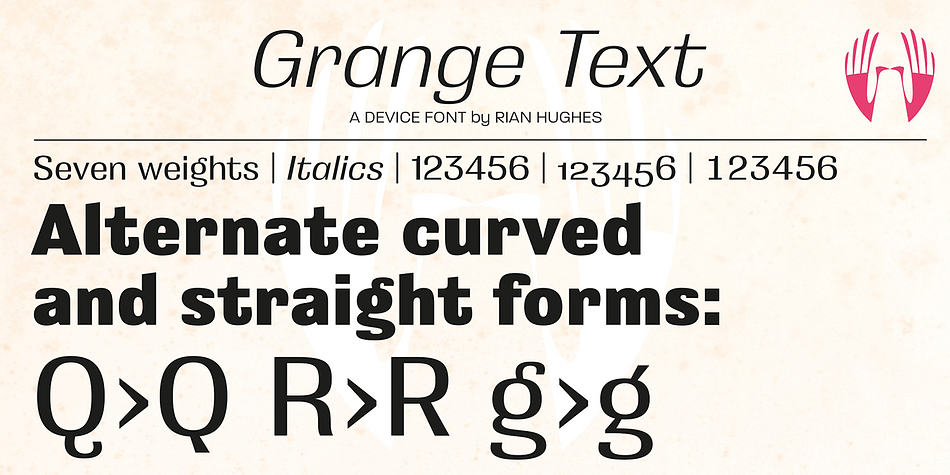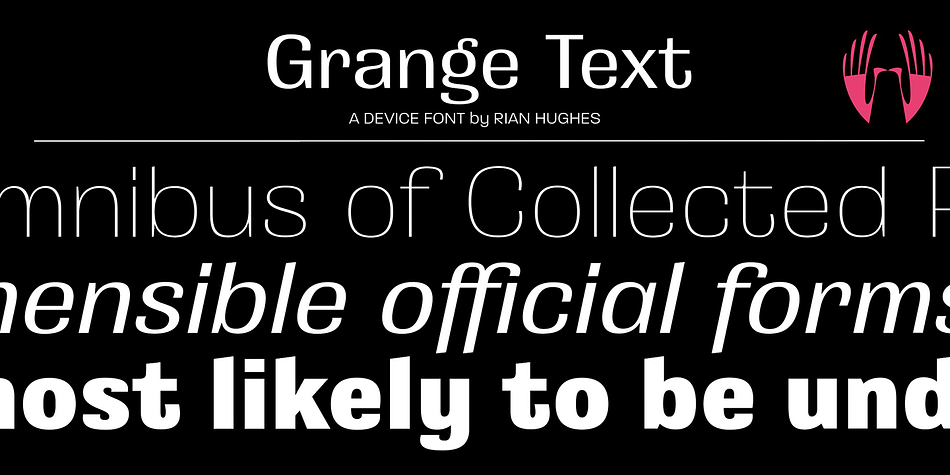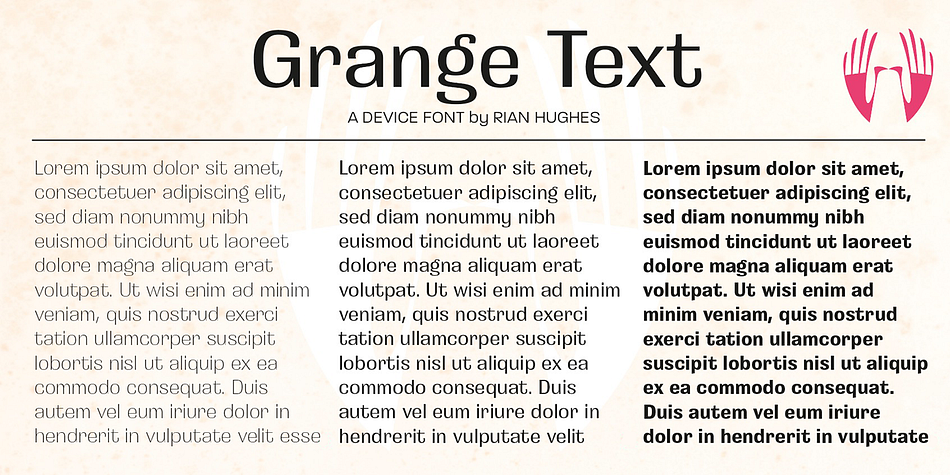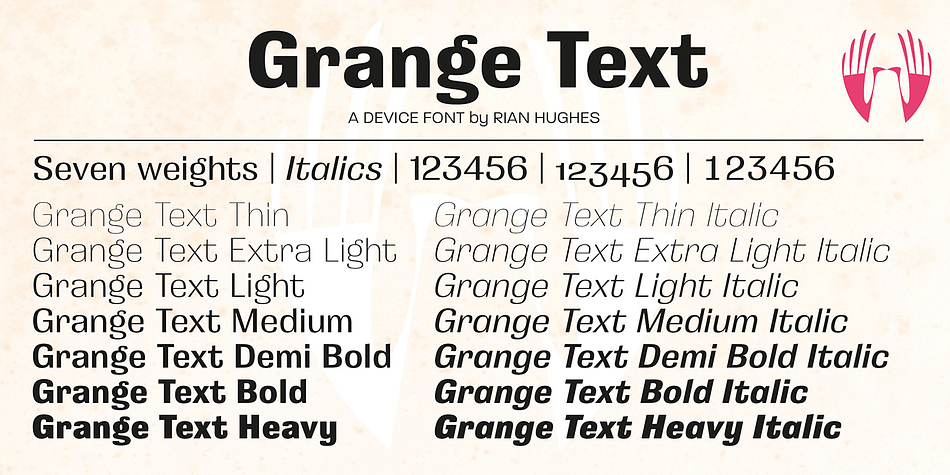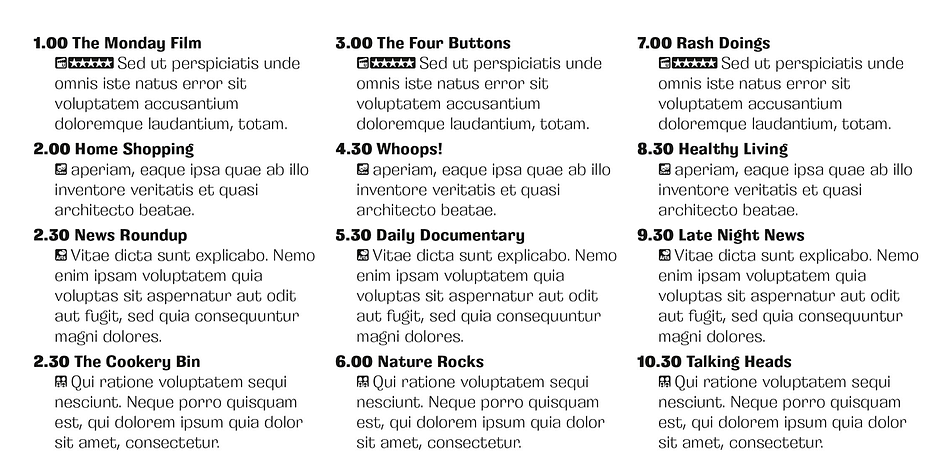
Designed by Rian Hughes, Grange Text is a sans serif font family. This typeface has fourteen styles and was published by Device.
Grange Text is optimised for smaller text sizes, having more open character shapes and spacing. Use the non-text version of Grange for larger sizes and headlines, which has tighter spacing and detailing.
Grange is the Device interpretation of the classic “Grot” thick/thin sans style. Unlike the traditional models on which it is based, Grange takes a rational, consistent approach across wide range of weights and widths for contemporary use.
The font includes alternative curved and straighter versions of key characters, most obviously the lower-case ‘g’ and capital ‘R’, allowing the font to take on either a sharper or warmer, more playful appearance. These can be toggled on or off using the ‘Alts’ feature in Illustrator, or ‘Stylistc Sets’ in Indesign. Contains proportional, lining and tabular numerals.